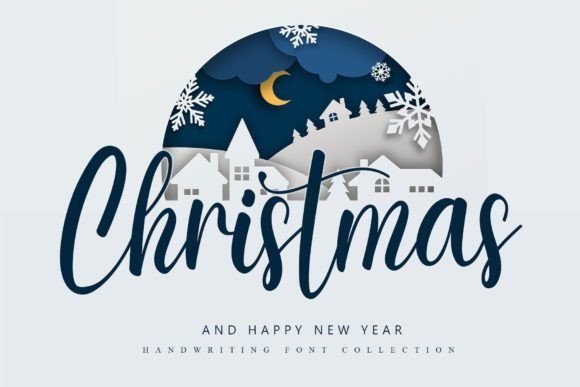
Get Ready to Deck the Halls with Style: Introducing the Christmas Font
It’s that time of the year when creativity knows no bounds, and your designs deserve a special touch. You’ve spent hours perfecting your holiday card, or perhaps you’re working on a festive project for your Instagram feed. The question is, how can you make it stand out from the crowd?
Enter the Christmas Font – a beautifully crafted handwritten font designed to add a touch of elegance to your designs. This enchanting font is perfect for adding a personal and unique touch to your holiday projects, whether you’re creating calligraphy scripts for DIY decorations or need a font for your social media posts. As a designer, you’ll appreciate the value of this font in elevating your work and making it truly special.
Christmas Font Key Features
- Font Family: Christmas Font is a custom-designed font family, ideal for festive and holiday-themed projects.
- Unique Characteristics: Features a distinctive, hand-drawn design with intricate details, giving it a unique and festive feel.
Designer Review: Christmas Font
Overall, I’d say the Christmas Font is a delightful addition to any holiday-themed project. Here’s what I think works well:
- ✨ The font is incredibly festive and fun, making it perfect for capturing the spirit of the season.
- ✨ The design is quite versatile, allowing you to use it in a variety of contexts, from social media graphics to print materials.
- ✨ The font’s playful feel is contagious, making it easy to get into the holiday mood.
However, there are a few limitations I’d like to point out:
- ⚠️ The font might be a bit too over-the-top for some projects, making it difficult to use in a more subtle or minimalist design.
- ⚠️ The font’s readability can suffer when used in smaller sizes or on certain backgrounds.
Overall, I think the Christmas Font is a great choice for projects that need a bit of holiday cheer. While it may have some limitations, its playful and festive feel makes it a standout choice for any holiday-themed project.
Some tips for getting the most out of the Christmas Font include:
- Using it to add a festive touch to holiday cards and invitations.
- Creating a consistent brand identity by using the font in all of your holiday marketing materials.
- Experimenting with different font sizes and styles to create a unique and eye-catching design.